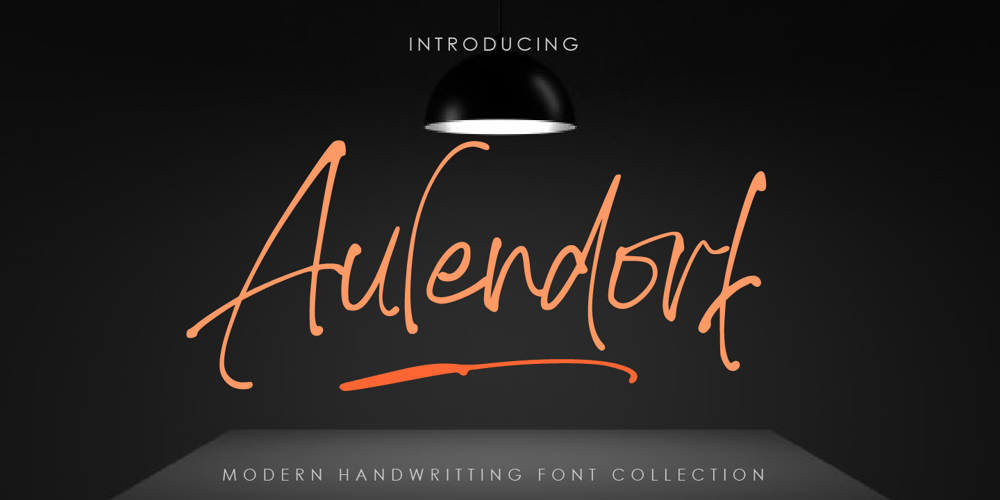
Aulendorf Font Family was designed by Amin Maryono and published by Aminmario Studio. Aulendorf contains 2 styles and family package options. Aulendorf font is modern and natural handwritten with a quick stroke pen effect.This font was created to look as close to a natural handwritten script, as possible by including lowercase alternates, ligature and underlines. Perfect for any awesome projects that need hand writing taste.With built in Opentype features, this script comes to life as if you were writing it yourself.It’s highly recommended to use it in opentype capable software – there are plenty out there nowadays as technology catches up with design … Other than Photoshop, Illustrator and Indesign, many standard simple programs now come with Opentype capabilities – even the most basic ones such as Apple’s Text Edit, Pages, Keynote, iBooks Author, etc. Even Word has found ways to incorporate it.Don’t hesitate if you have any questions.Thanks for checking out this font.I hope you enjoy it!AminMario